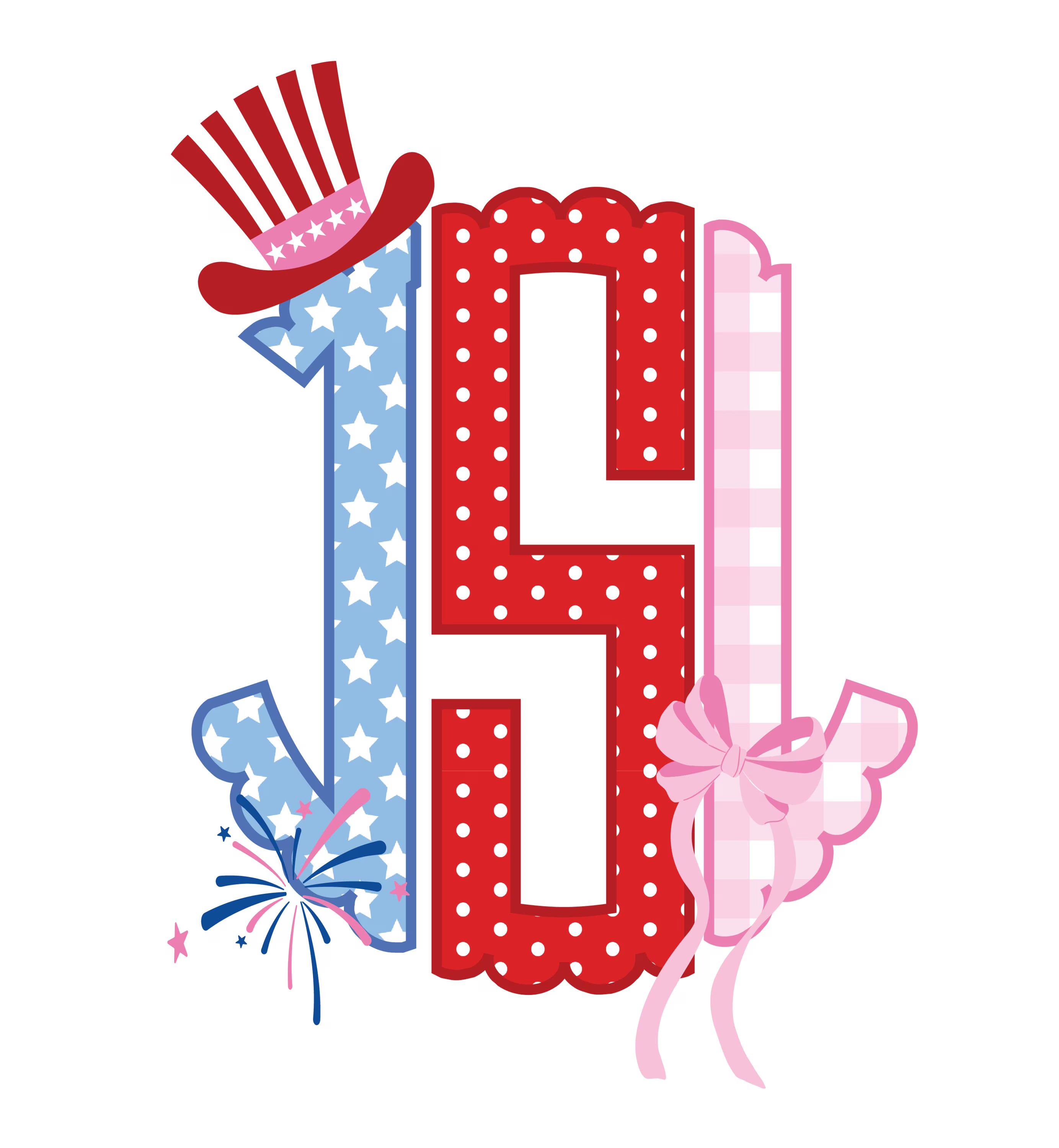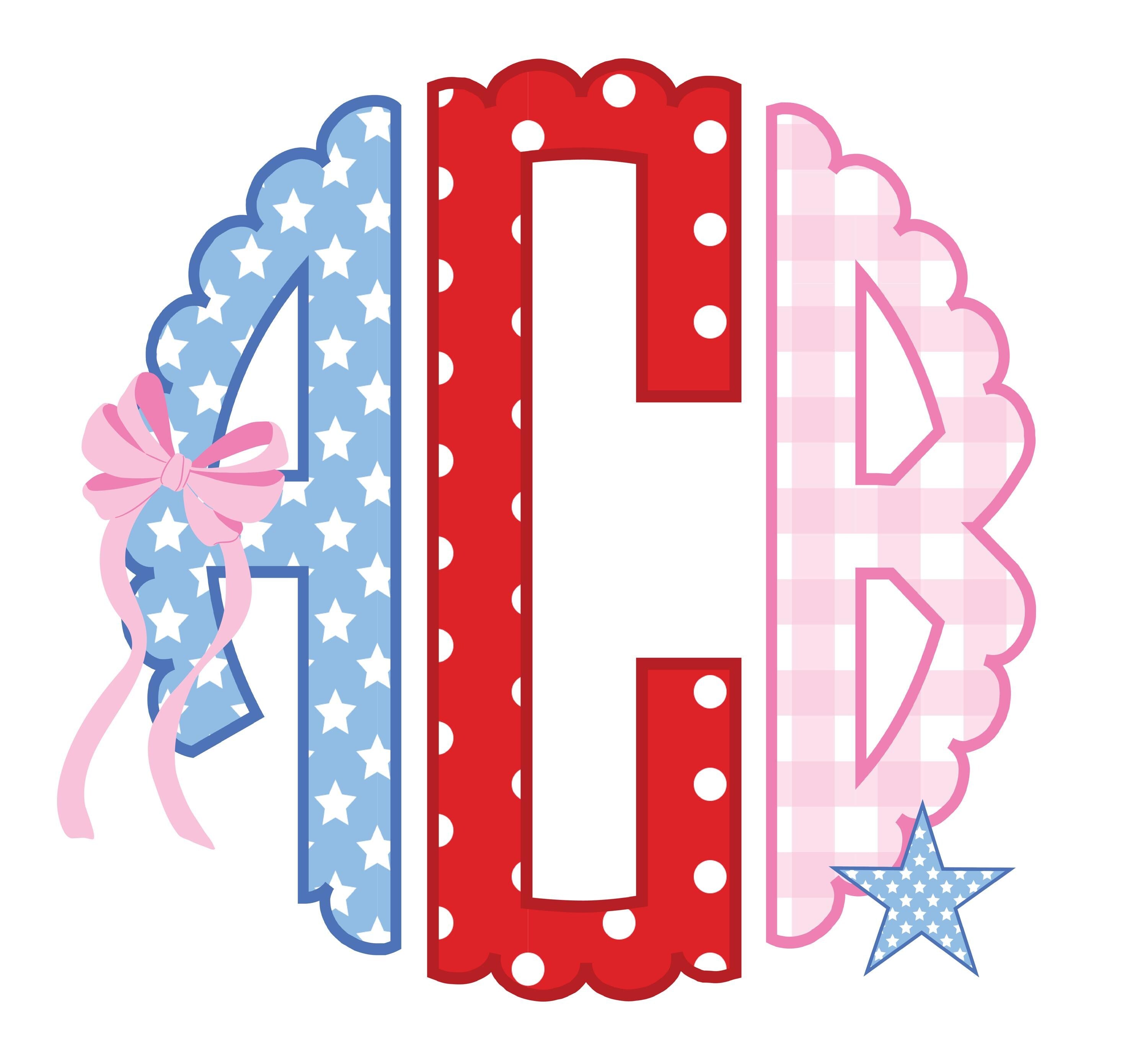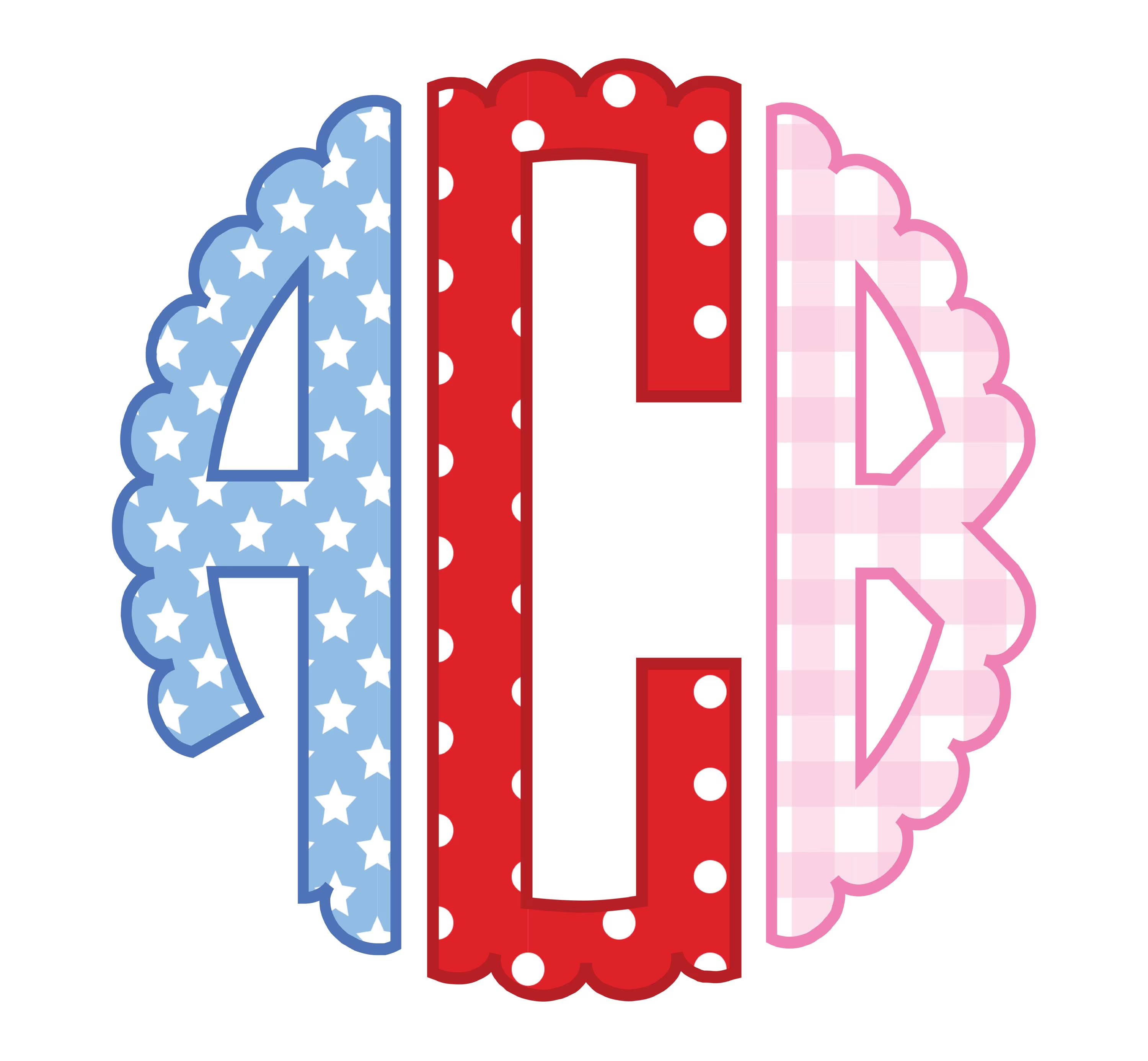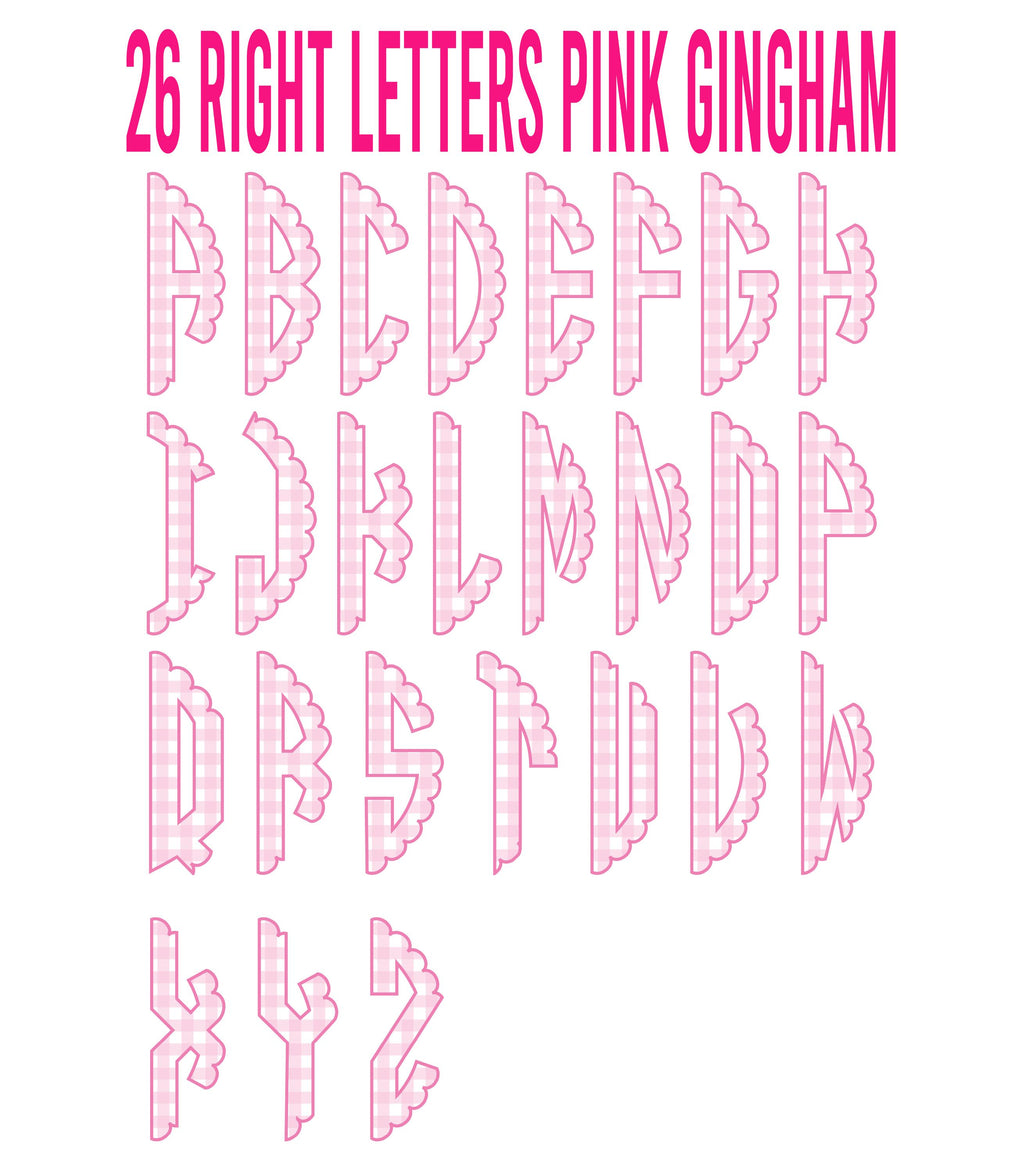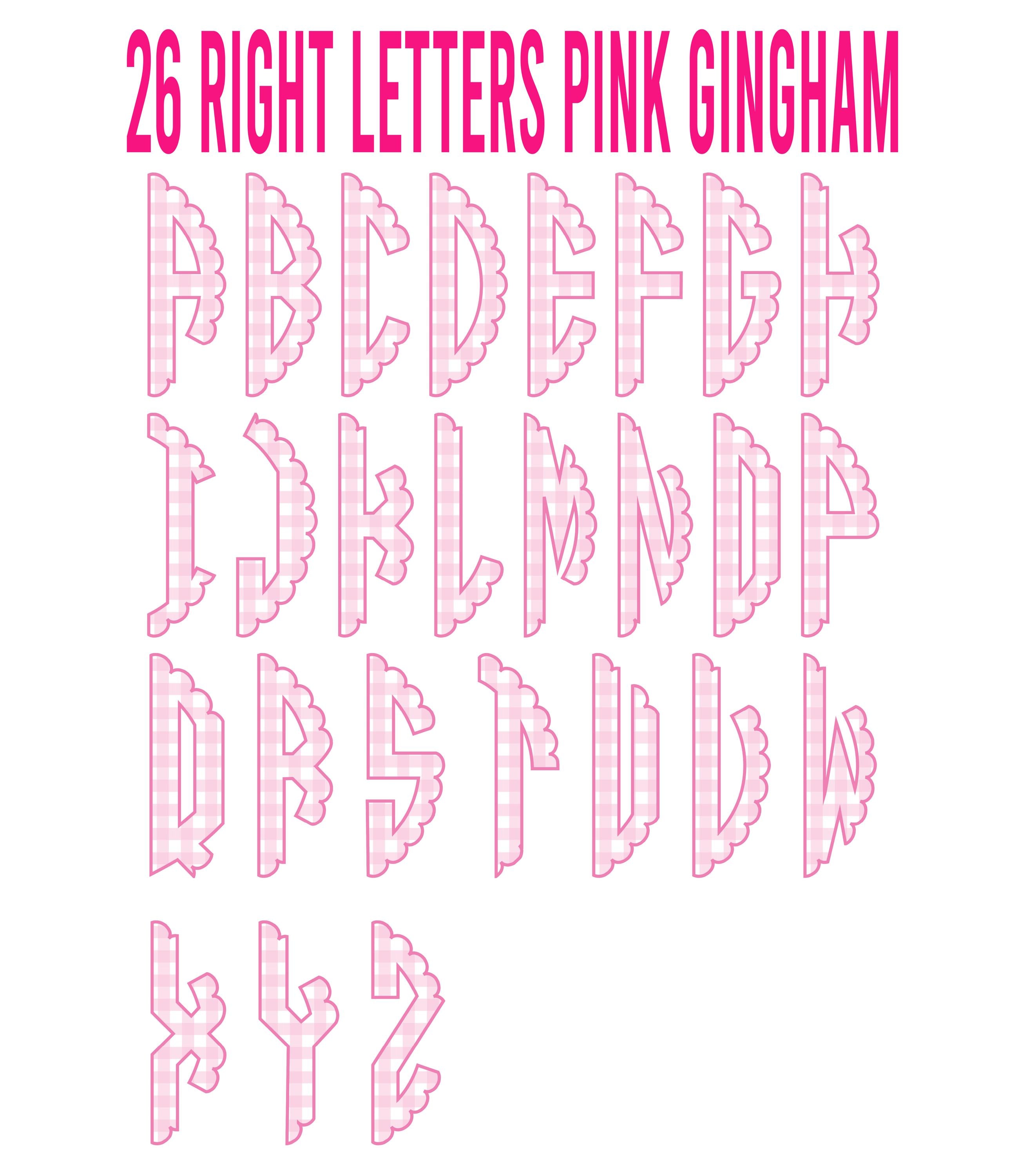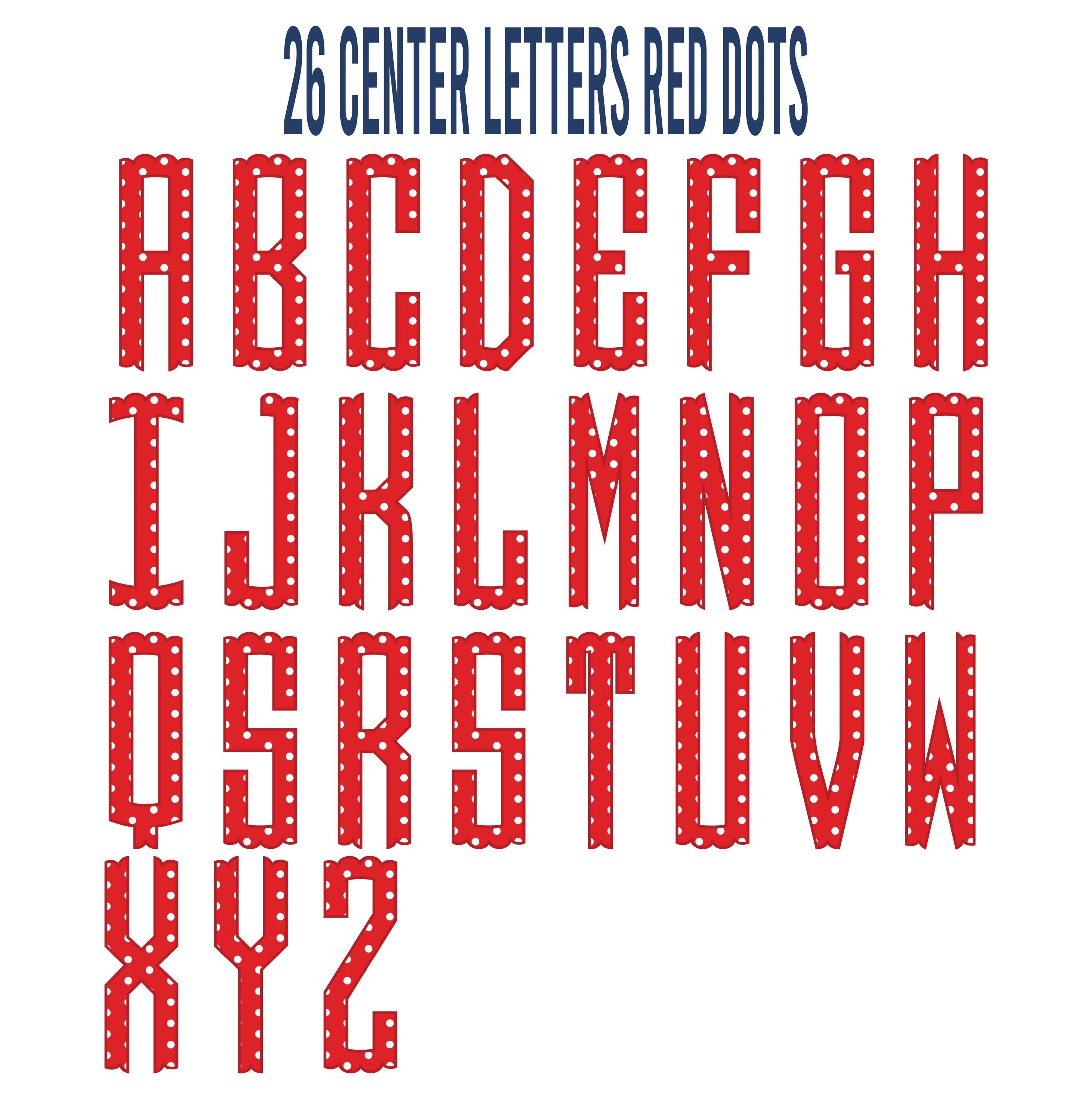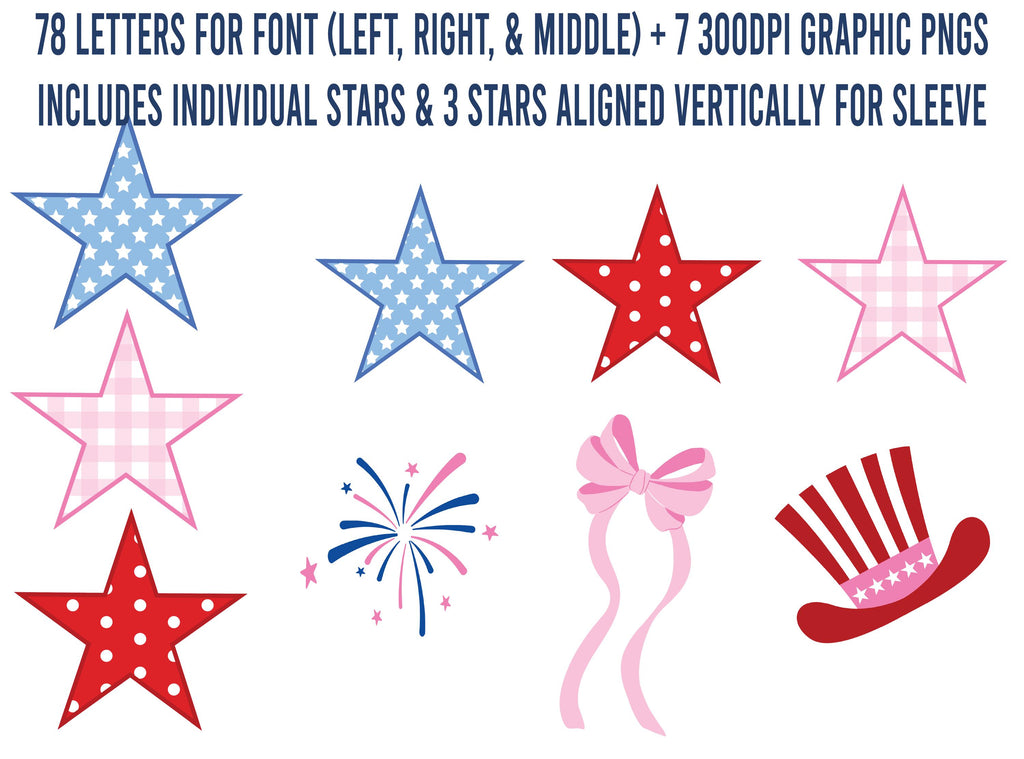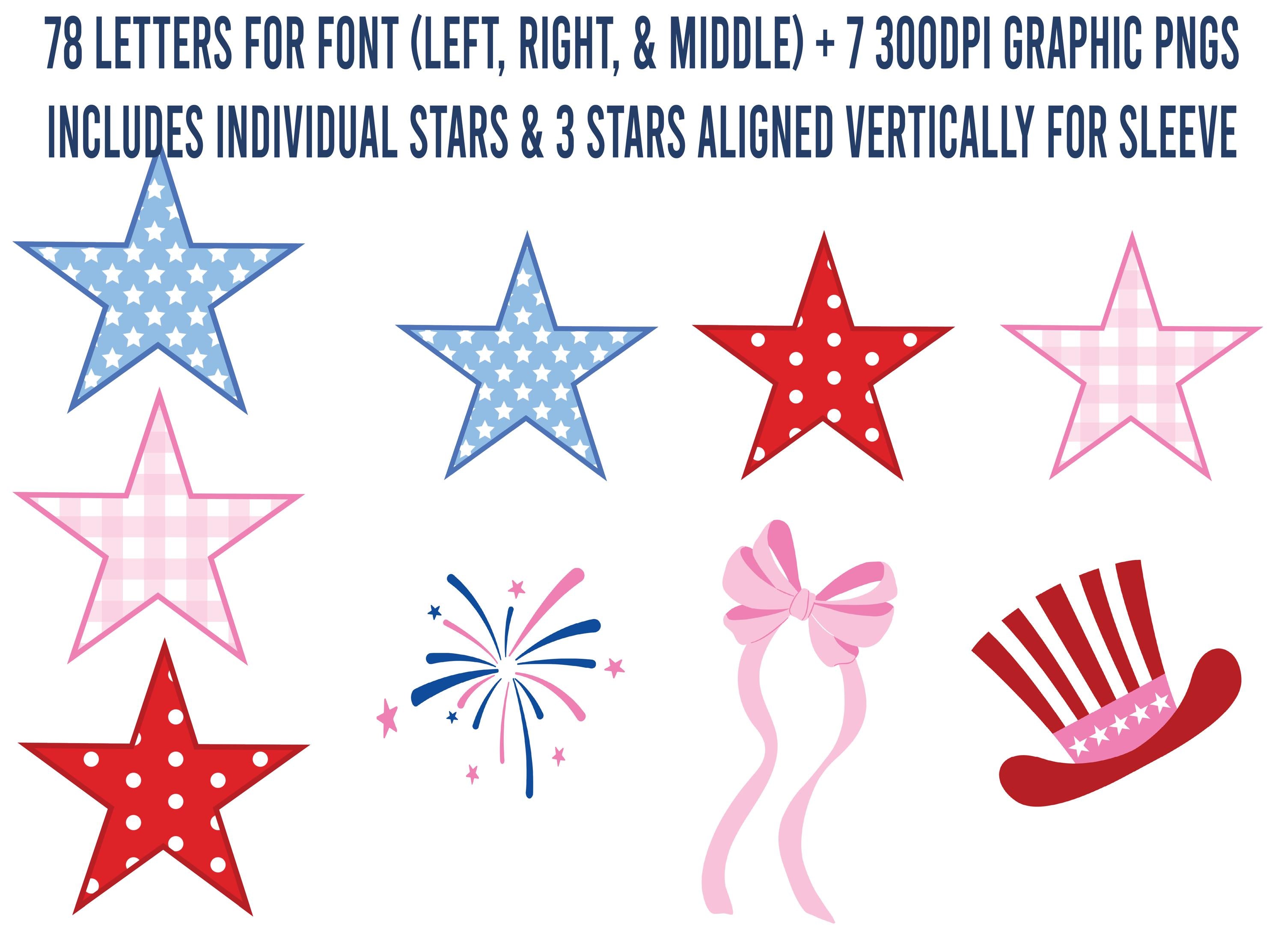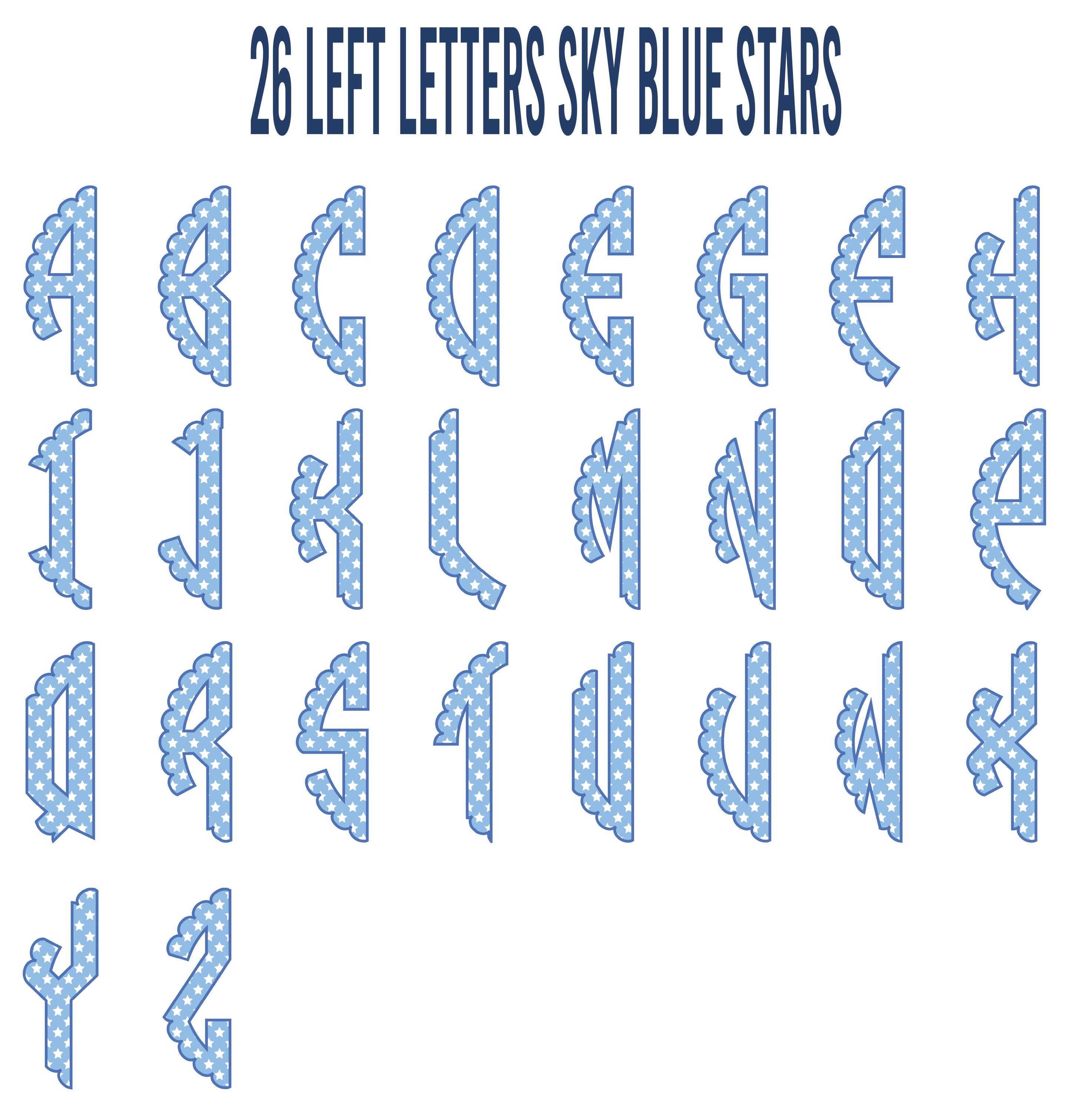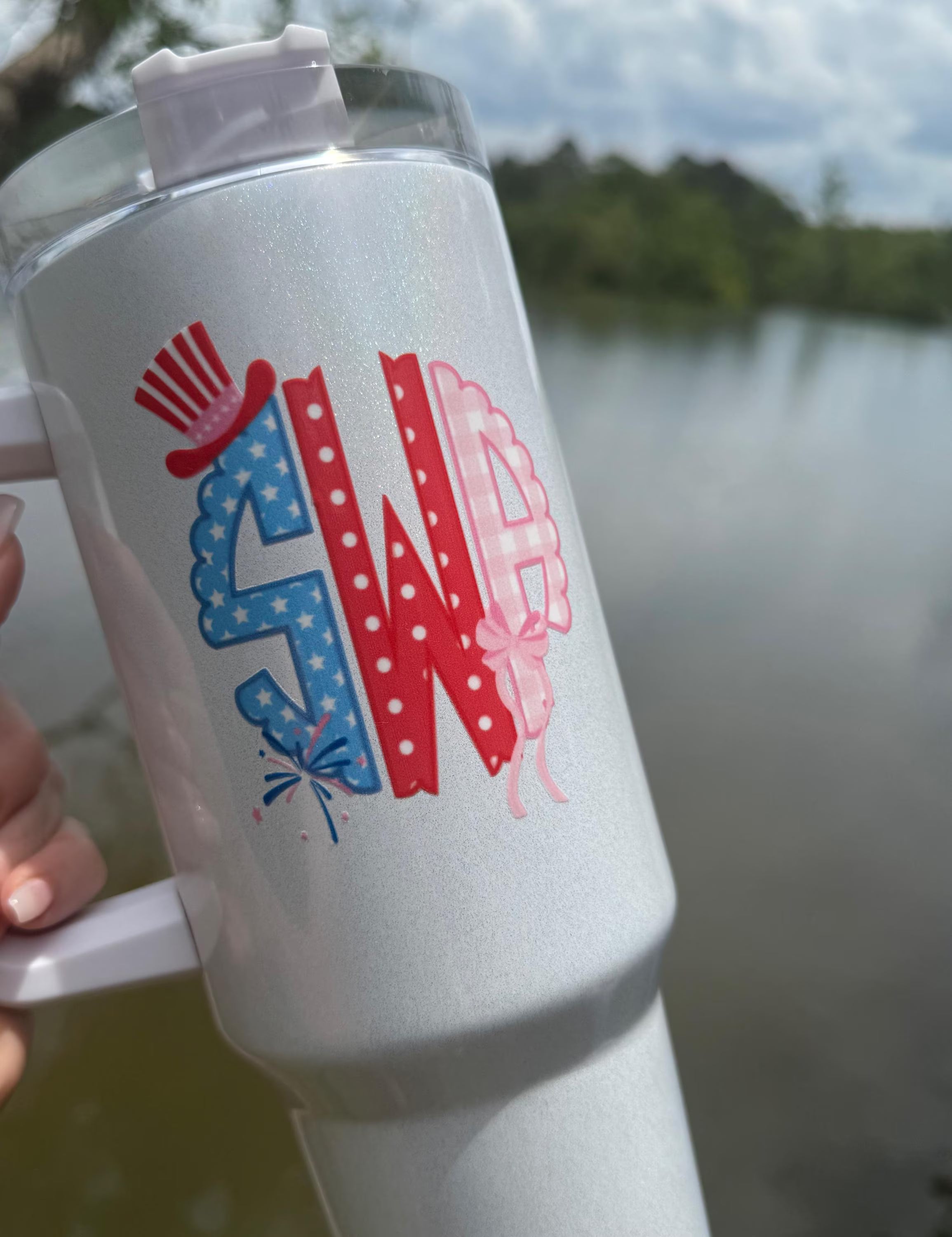
Patriotic Scallop Monogram PNG Font: Includes 76 Letters + 7 Designs
This adorable patriotic font is perfect for July 4th (and future Memorial Days & Labor Days too!)
Includes 26 left letters, 26 center letters, 26 right letters, + 7 graphic pngs to add to your font as you please! Add this to a cup or t-shirt or any dtg/dtf, sublimation, or printable project you desire.